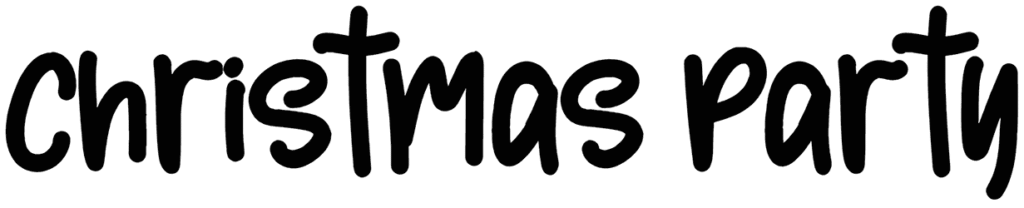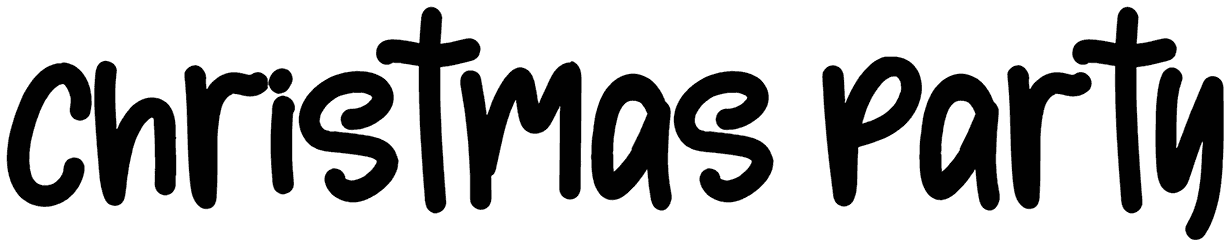
Christmas Party Font
Christmas Party is an imitation of a crooked handwriting whose slips make it suitable for more informal work. By using this script font, you can give your architecture a simple and ordinary feeling. There are deliberate…
Christmas Party is an imitation of a crooked handwriting whose slips make it suitable for more informal work. By using this script font, you can give your architecture a simple and ordinary feeling.
There are deliberate inaccuracies in the design of this font, which can diminish its serious and official nature. For this reason, it is mostly used in places such as invitations and wedding cards, where human relations are very prominent.